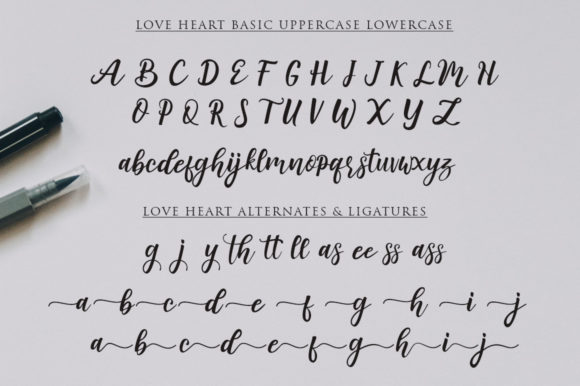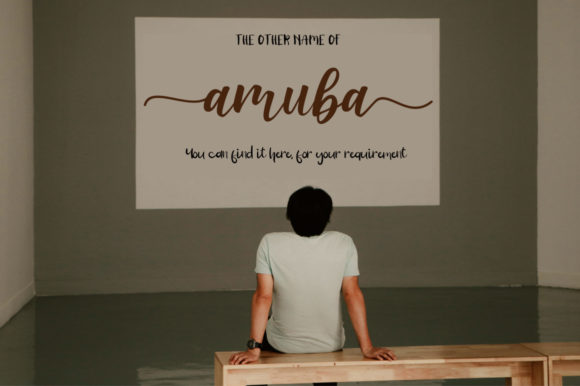
Love Heart Duo Font
db-ku.com - Script & Handwritten -- The Love Heart is a hand lettered script that is perfect for greeting cards, branding, stationery designs, social media, packaging, magazine layouts, prints, logos and more!